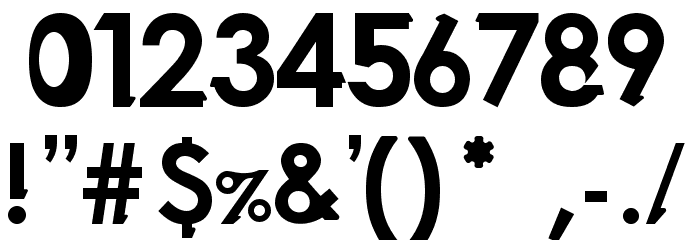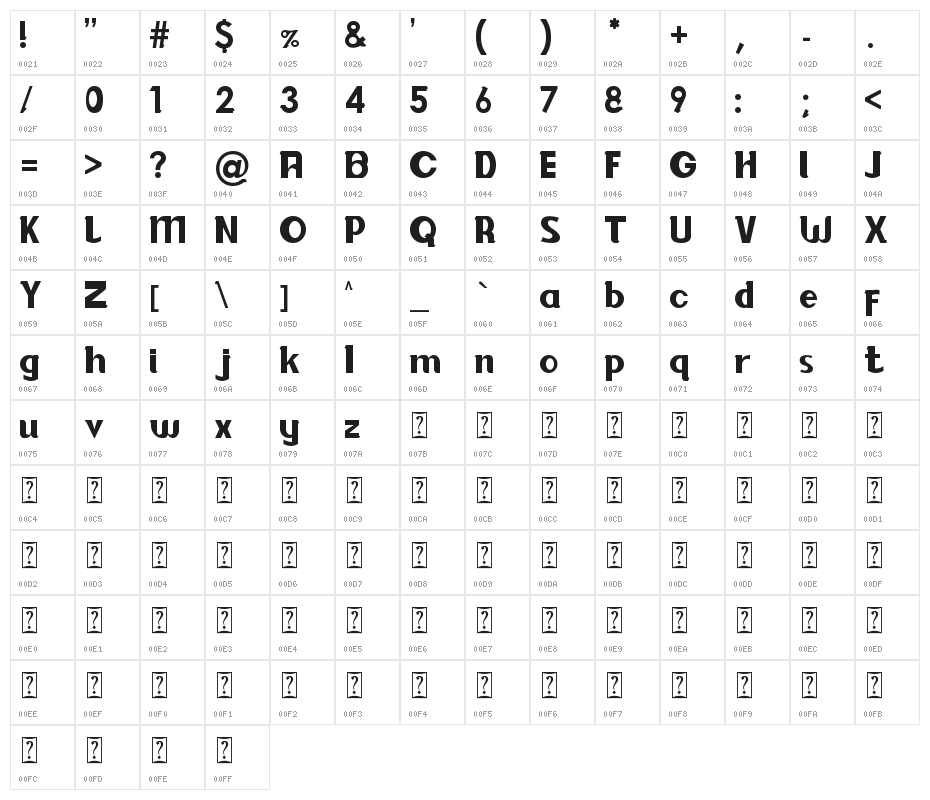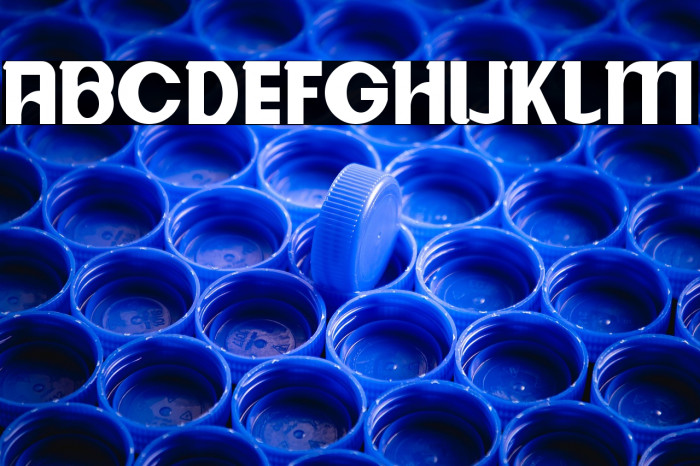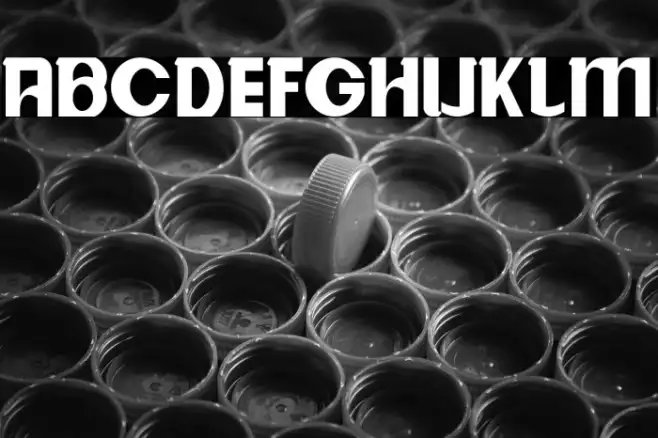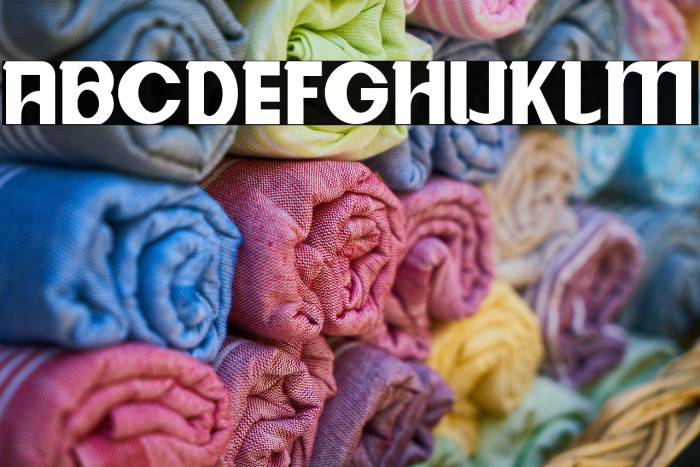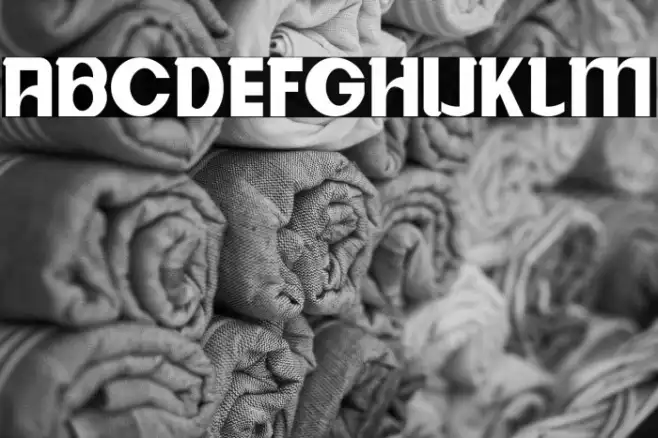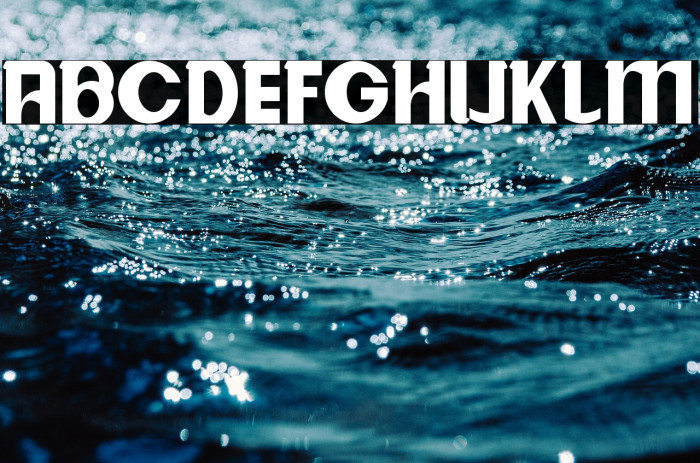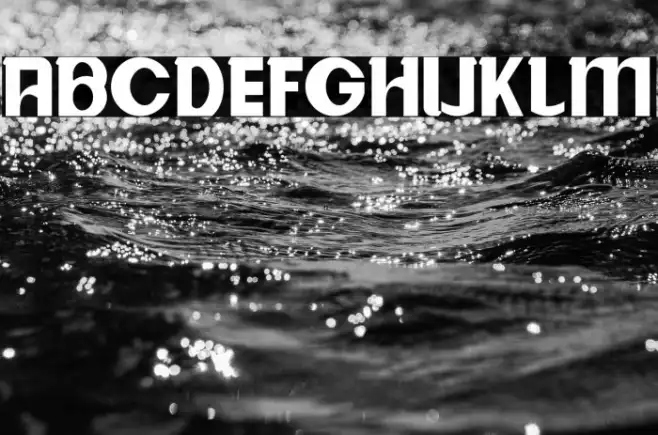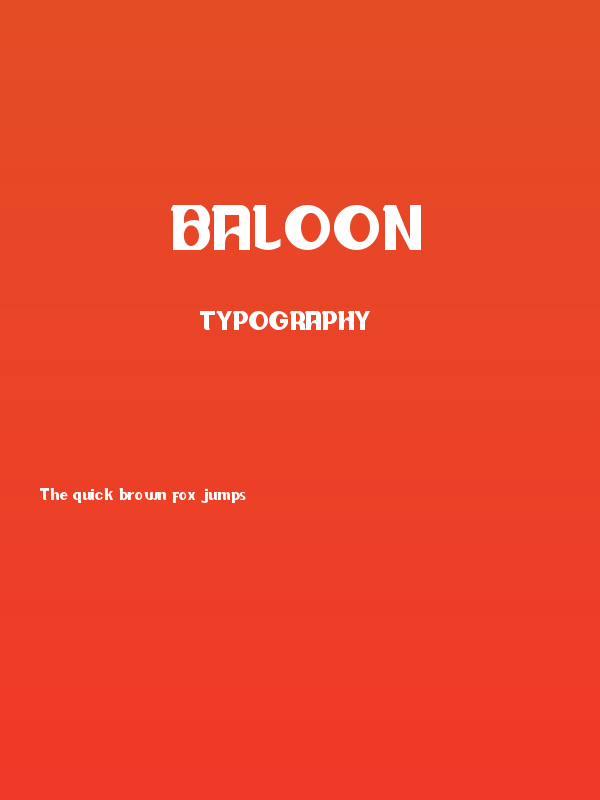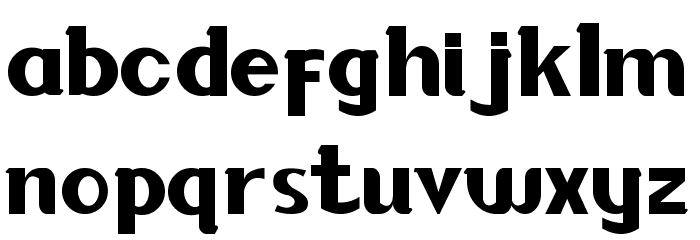
Baloon Font
Baloon Description
This font features a bold and playful design with a strong presence. The characters are rounded and slightly condensed, giving them a unique and approachable appearance. The uppercase letters have a consistent height, while the lowercase letters maintain a balanced proportion, making the font versatile for various uses. The numerals are clear and distinct, ensuring readability. Special characters are well-integrated, maintaining the overall style of the font. The bold strokes and rounded edges contribute to its friendly and inviting look.
| Proposed Projects | Ideal for children's books, playful branding, posters, and creative projects that require a friendly and approachable typeface. |